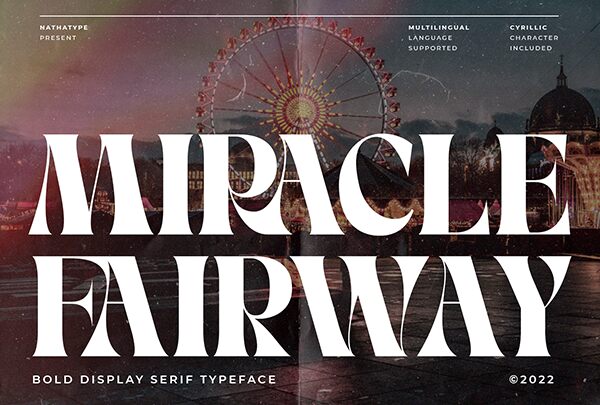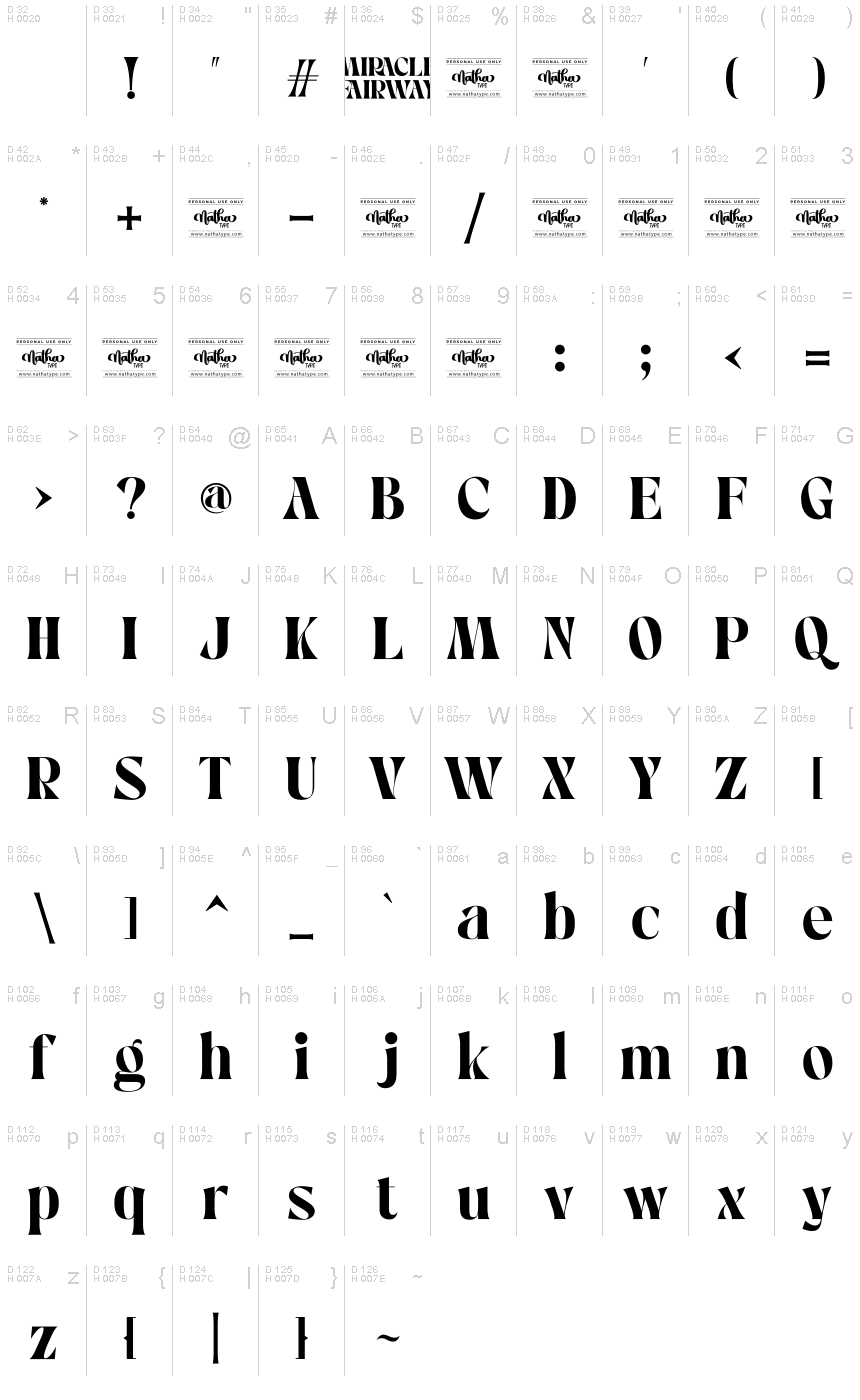
Miracle Fairway, a bold and distinctive serif display font crafted by the talented Nathatype, exudes a captivating retro flair. This striking typeface boasts a commanding presence, with its thick strokes and sharp, geometric serifs creating a visually striking and eye-catching aesthetic. Miracle Fairway's robust design lends itself to a variety of applications, from attention-grabbing headlines and impactful branding to vintage-inspired designs and retro-themed projects. Its bold, retro-infused style makes it a versatile choice for designers seeking to create a strong, memorable visual impact across a range of mediums, from print materials to digital interfaces.